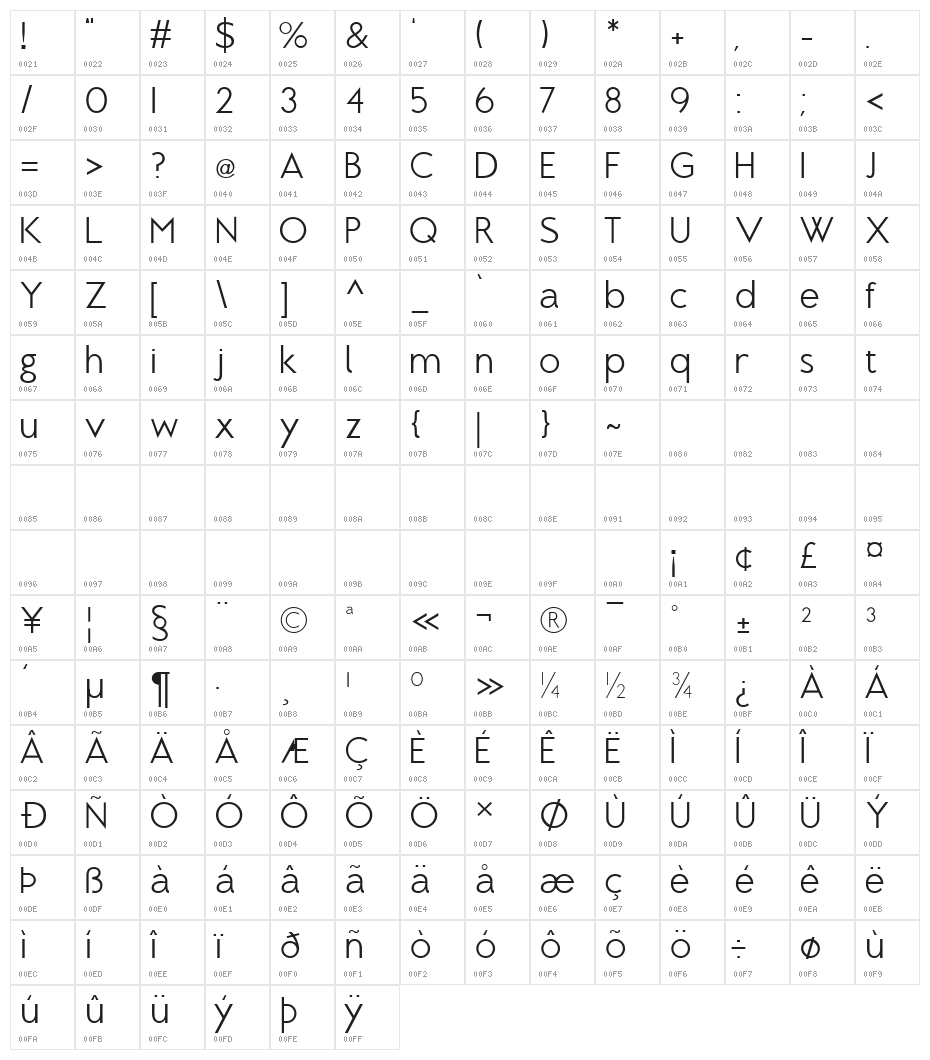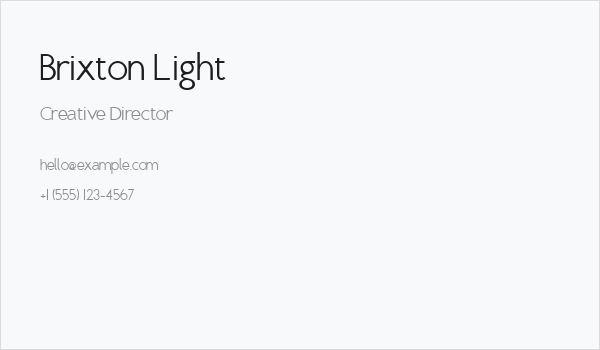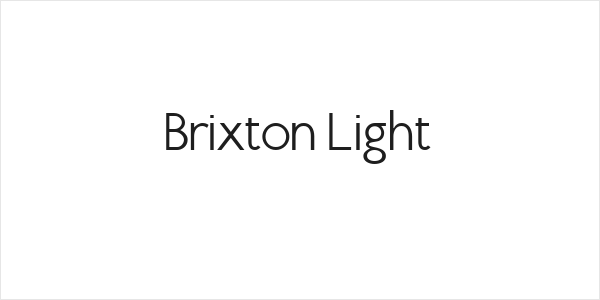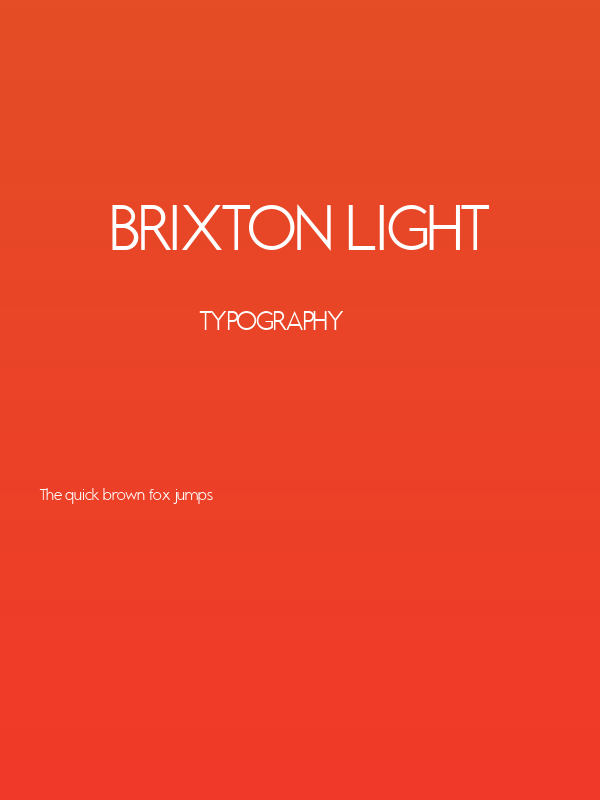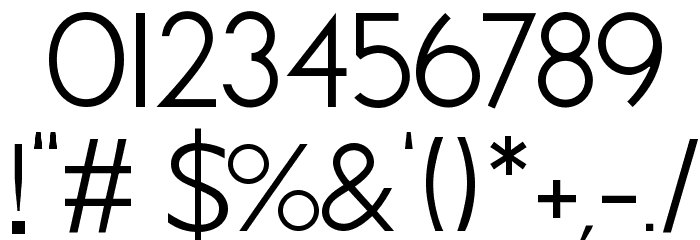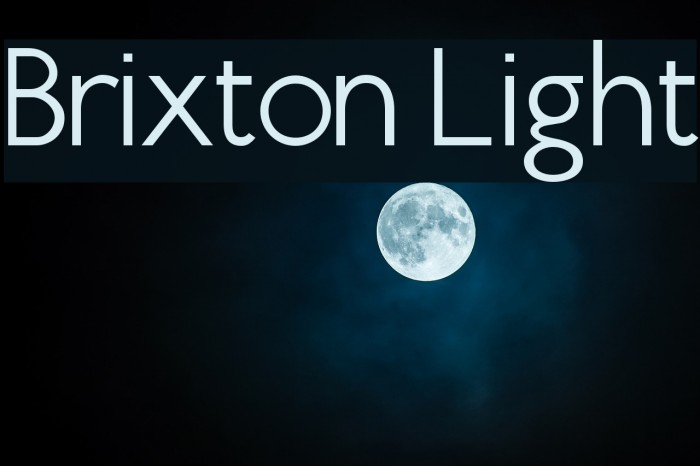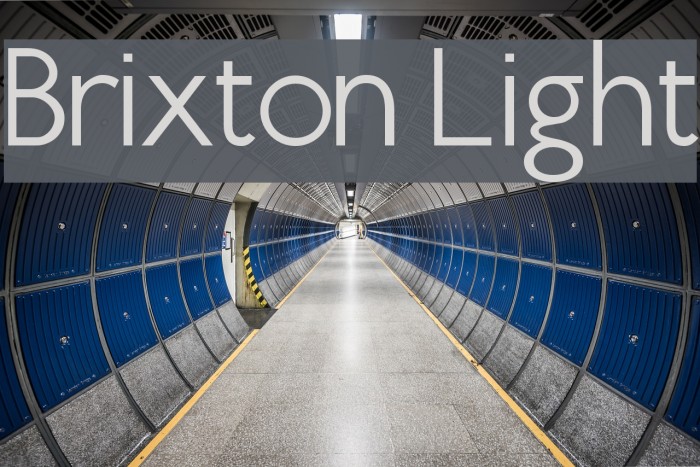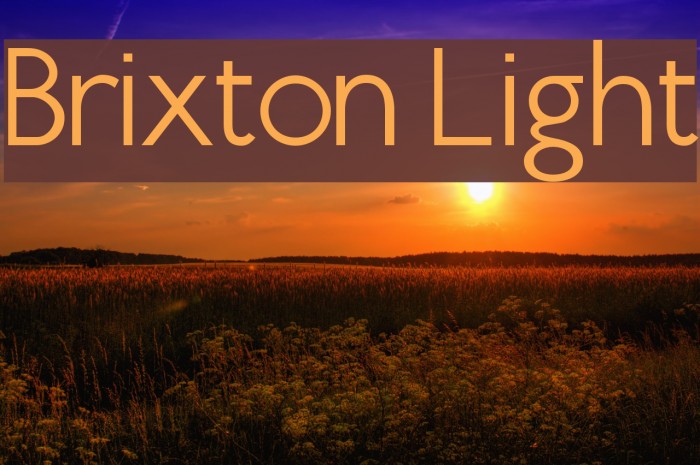
Brixton Light Font
Brixton Light Description
This font features a clean and modern sans-serif design with a geometric structure. The characters are evenly spaced, providing a balanced and harmonious appearance. The uppercase letters are bold and assertive, while the lowercase letters maintain a consistent flow with rounded edges. The numerals are clear and easy to read, making them suitable for various applications. The special characters are well-integrated, ensuring versatility in design projects. Overall, this font exudes a contemporary and professional vibe, perfect for digital and print media.